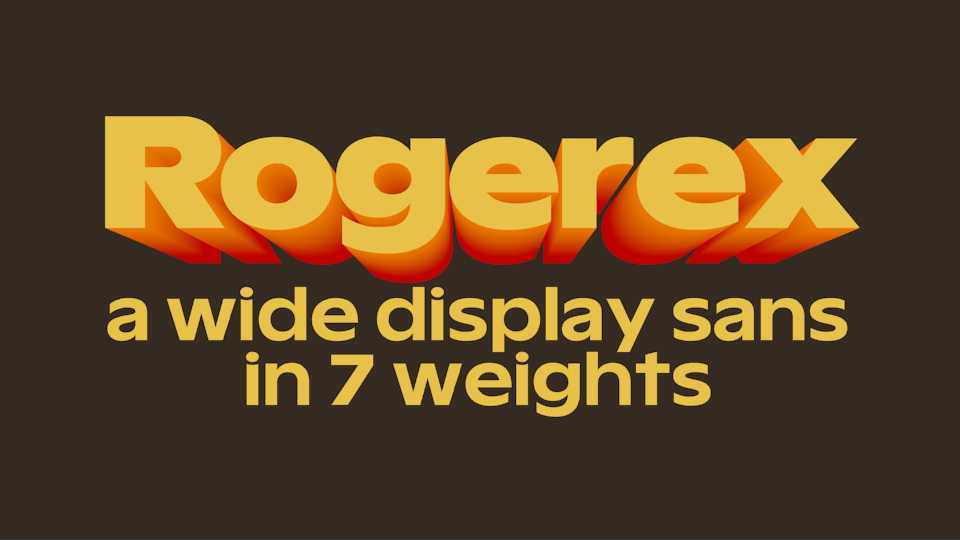
Download Rogerex font, a sans serif typeface inspired by the late Roger Excoffon and his well known typeface Antique Olive. Stunning features of Rogerex font include vertical terminals, wide proportions, and its change in mood across weights.
Designer: Quinn Davis